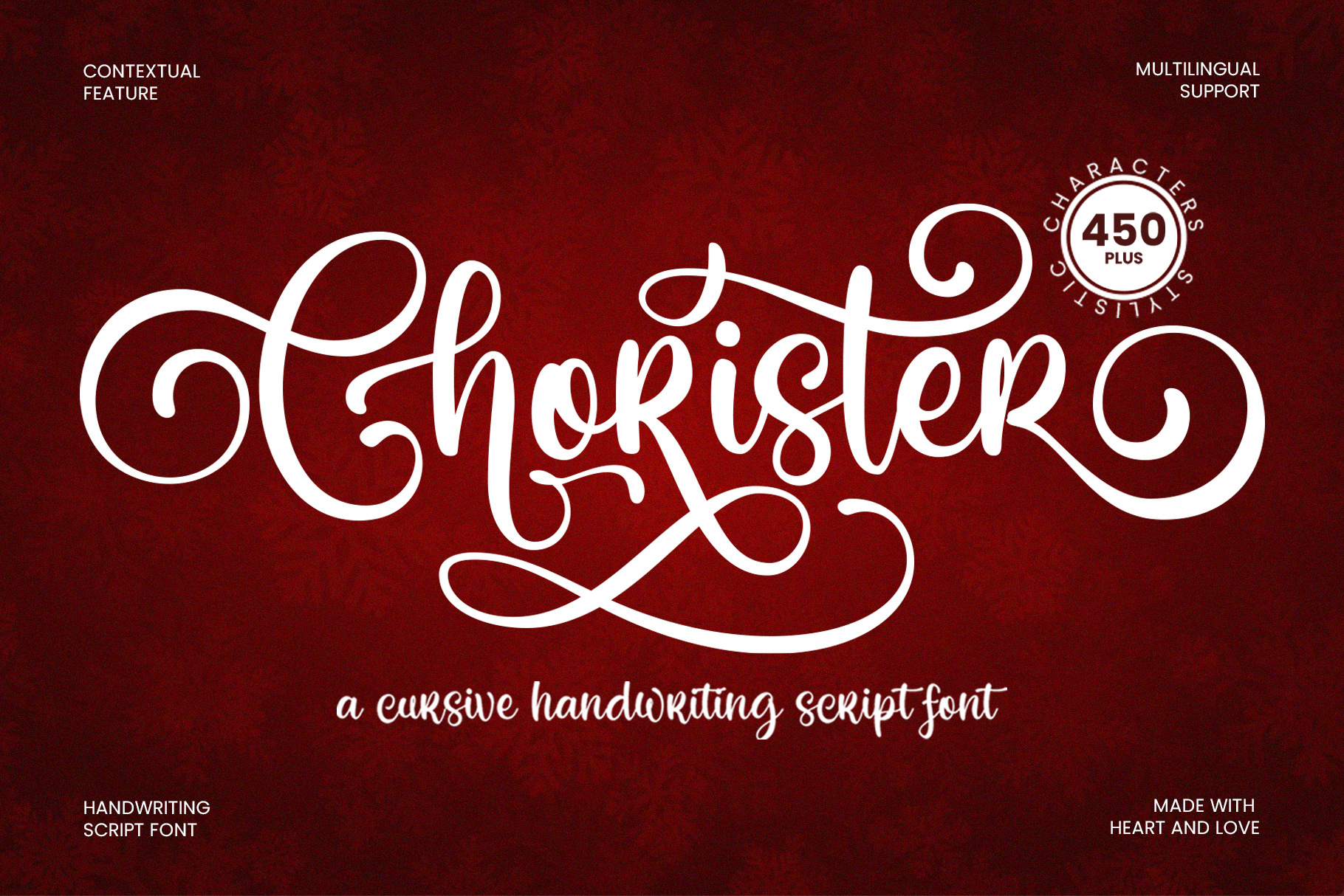
Chorister - Handwriting Script Font
Introducing Chorister, a cozy Christmas handwriting script that adds festive charm to your designs. Perfect for holiday cards, invitations, and seasonal branding projects!
- Uppercase & Lowercase Characters: Fully designed for a complete typographic experience
- Numerals & Punctuation: All the numbers and punctuation marks you need for any design task
- Multilingual Support: Includes characters for multiple languages, ensuring global usability
- High-Quality Design: Each font is crafted with attention to detail, ensuring a polished and professional look